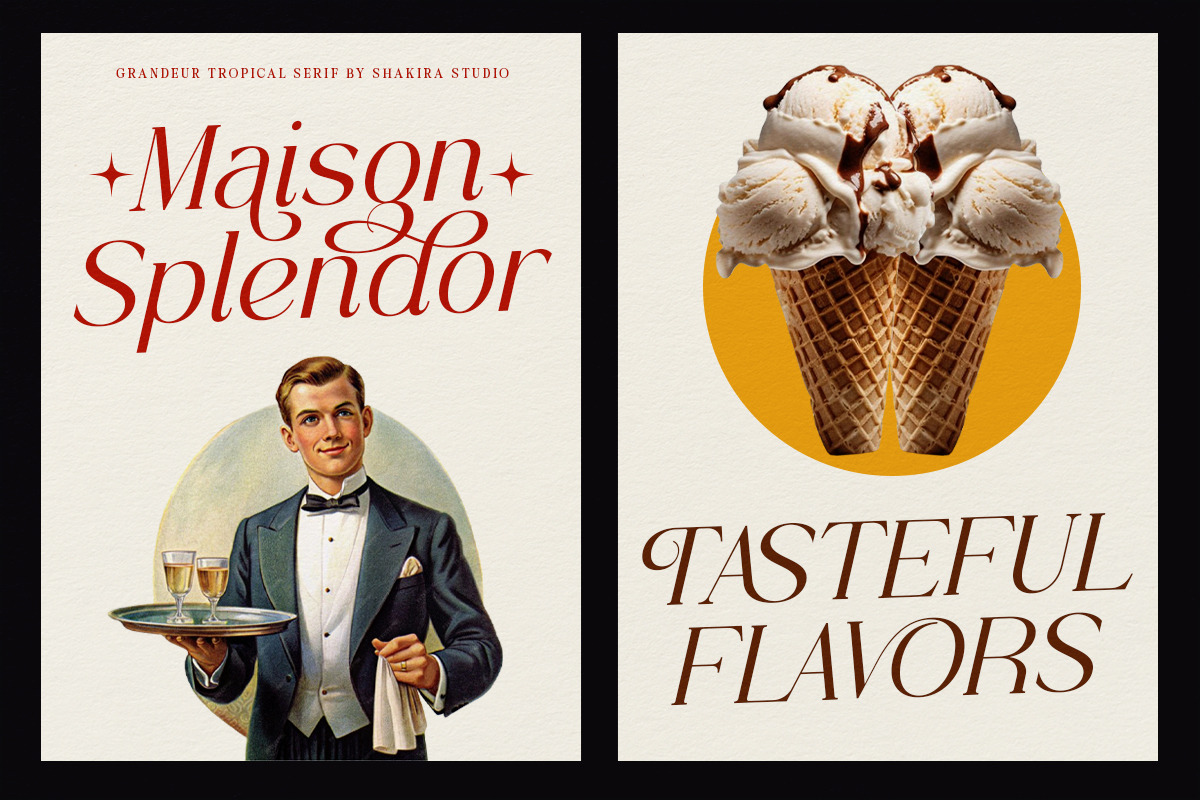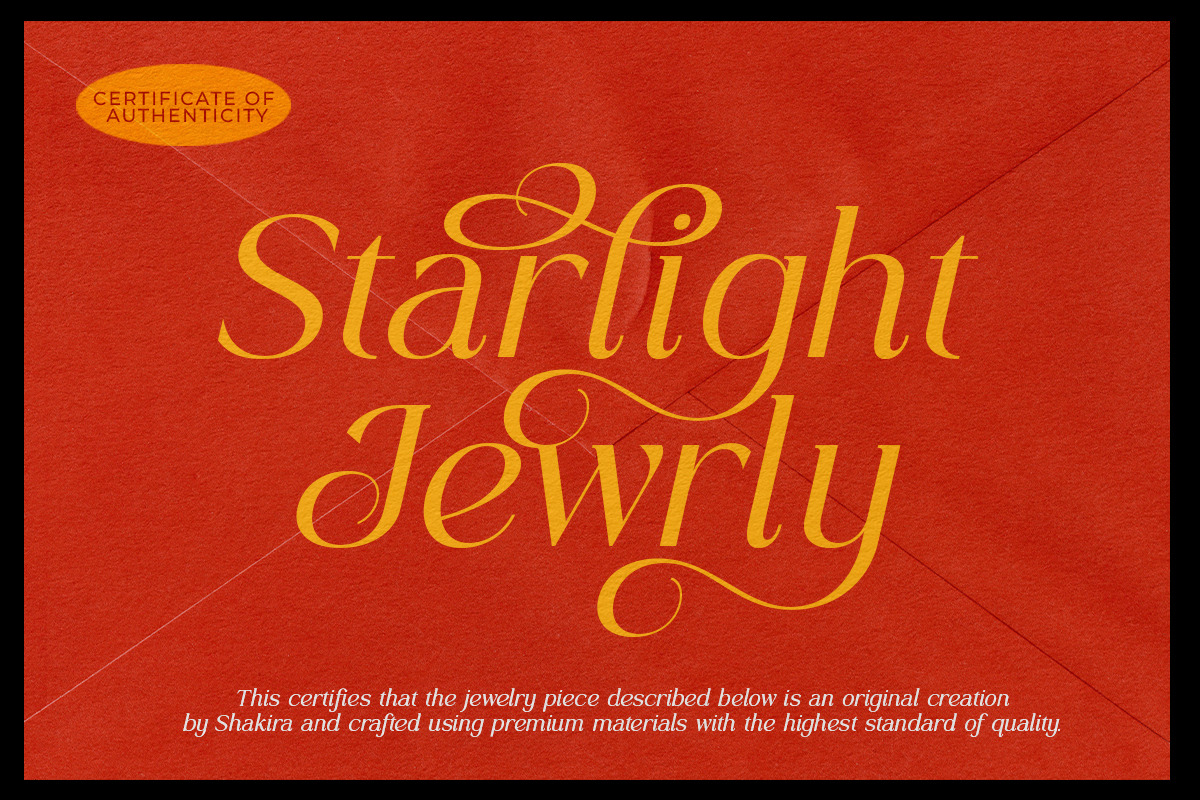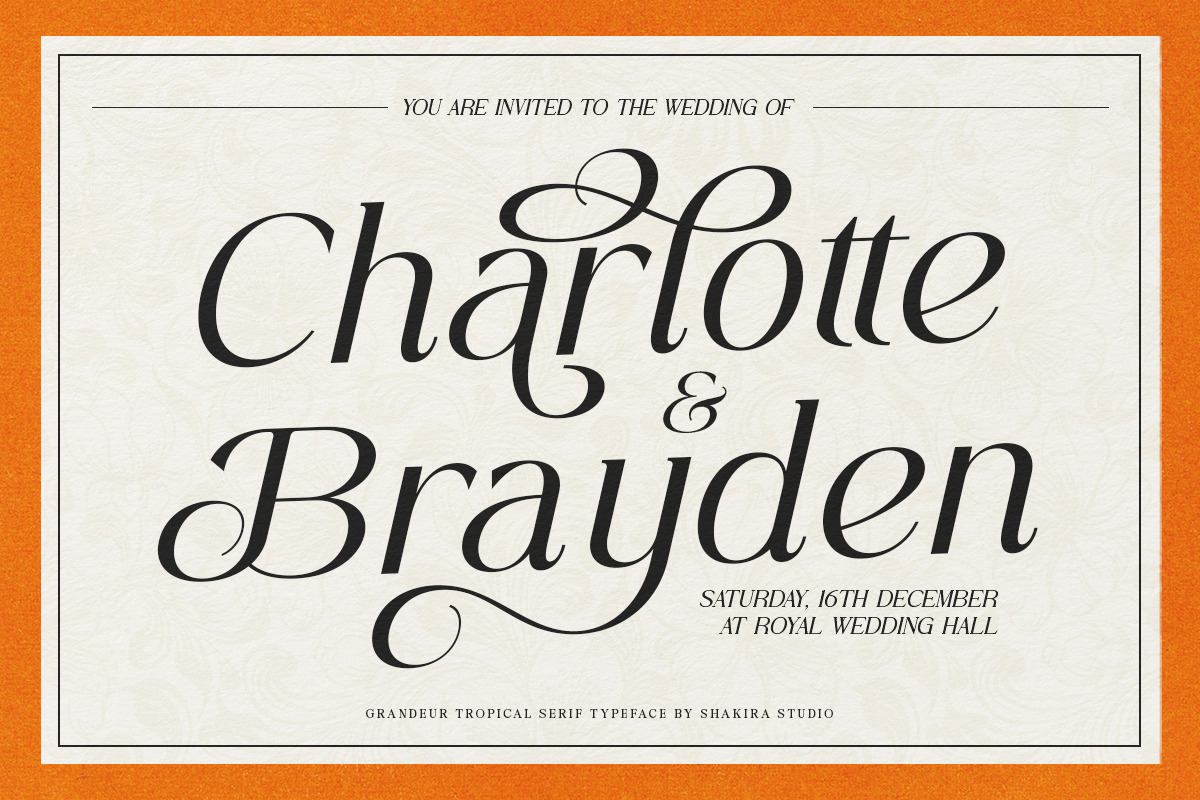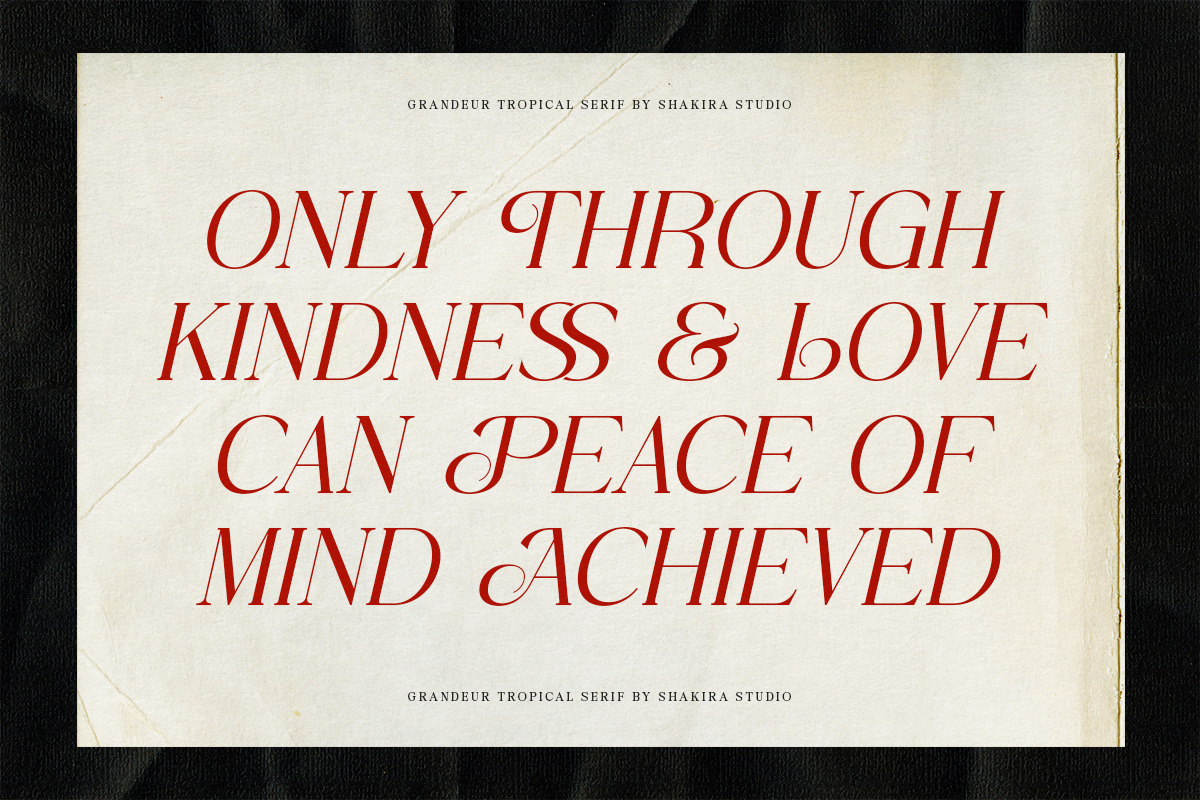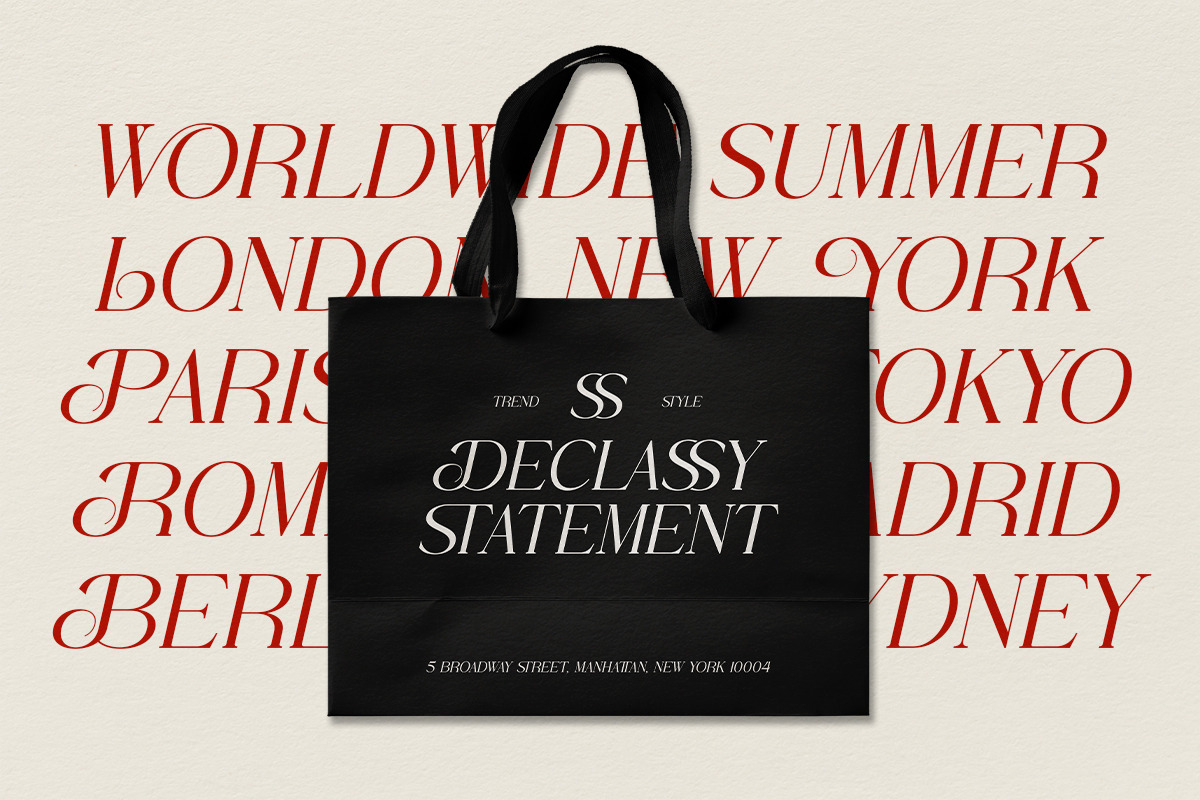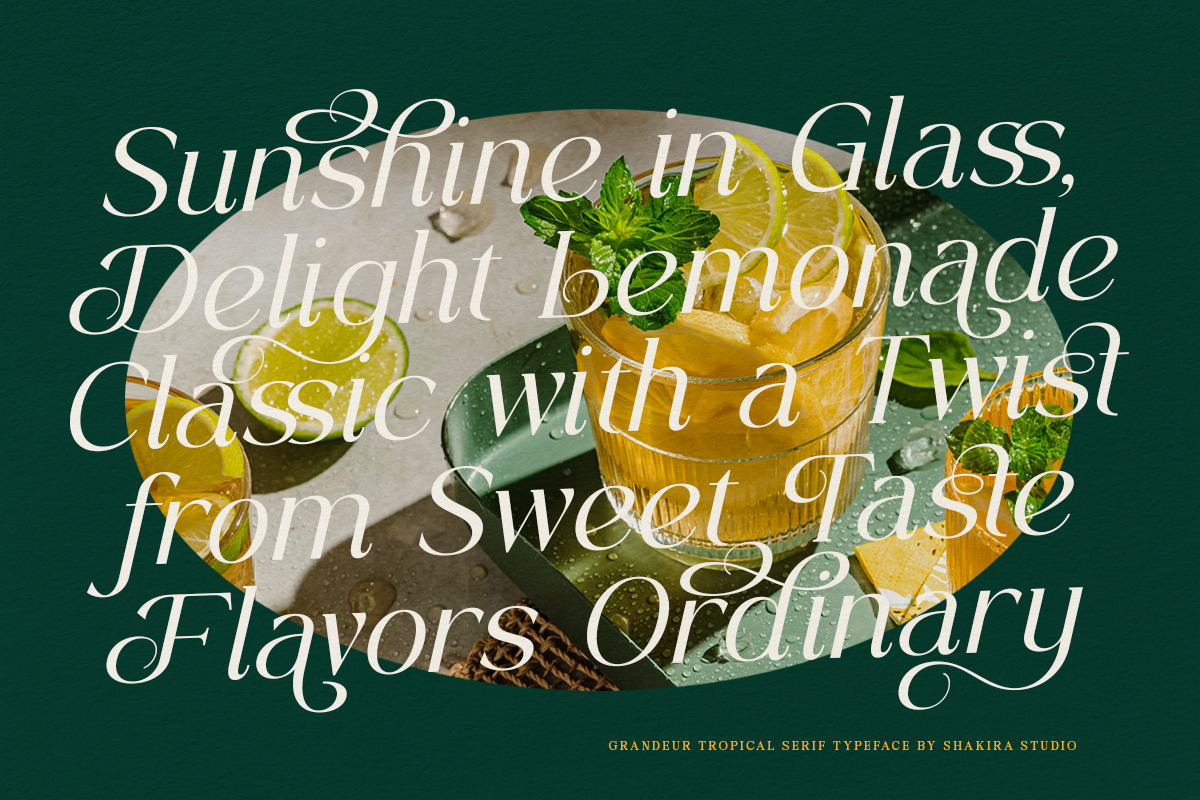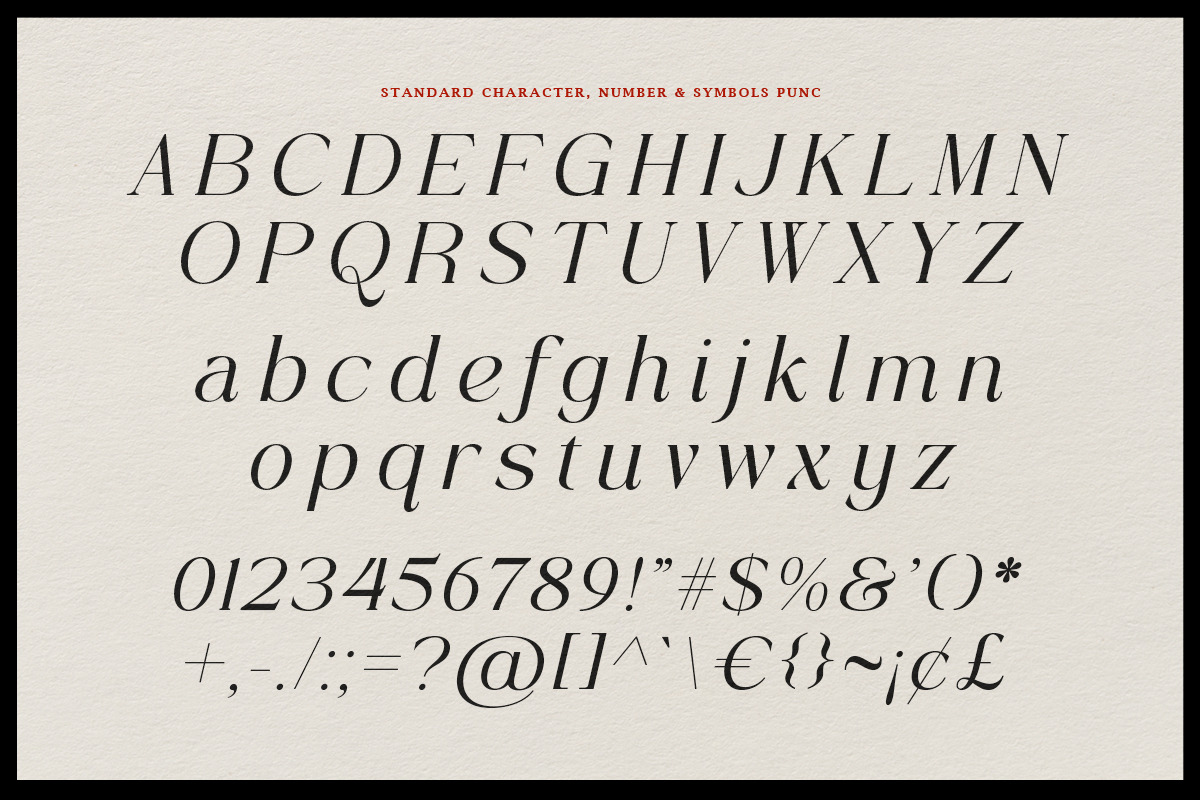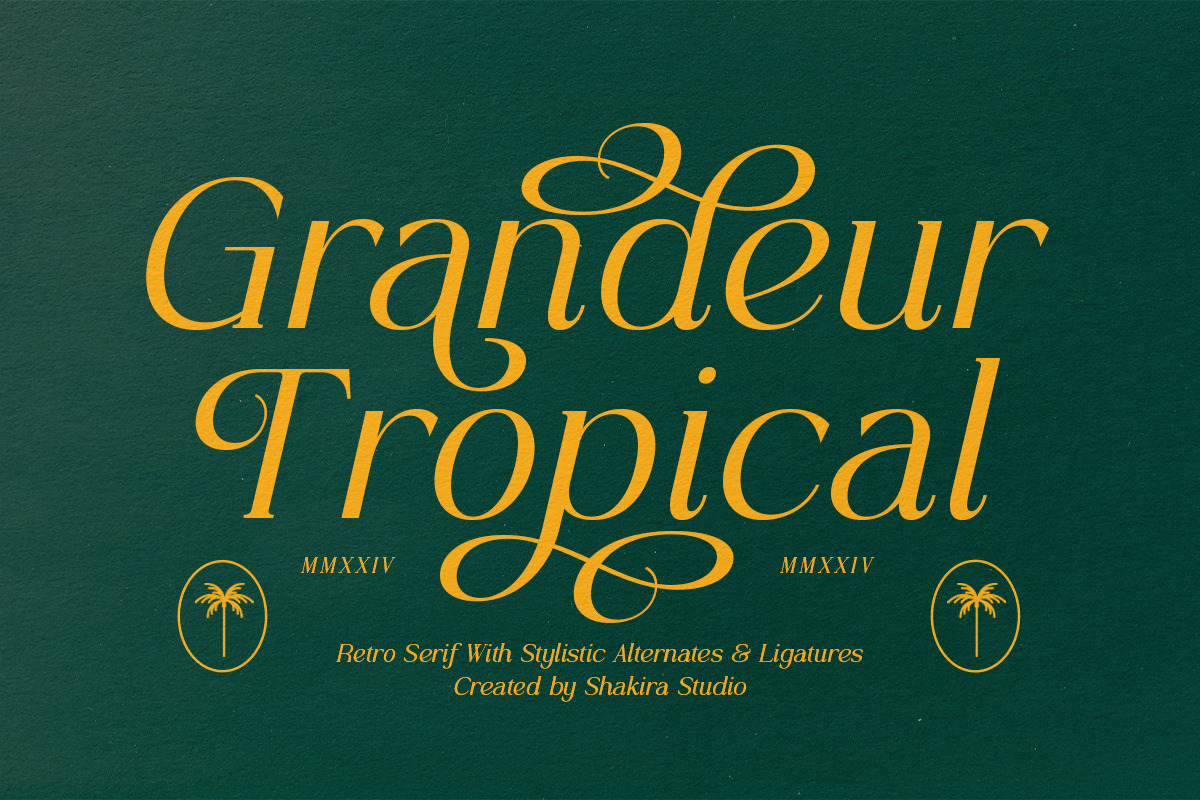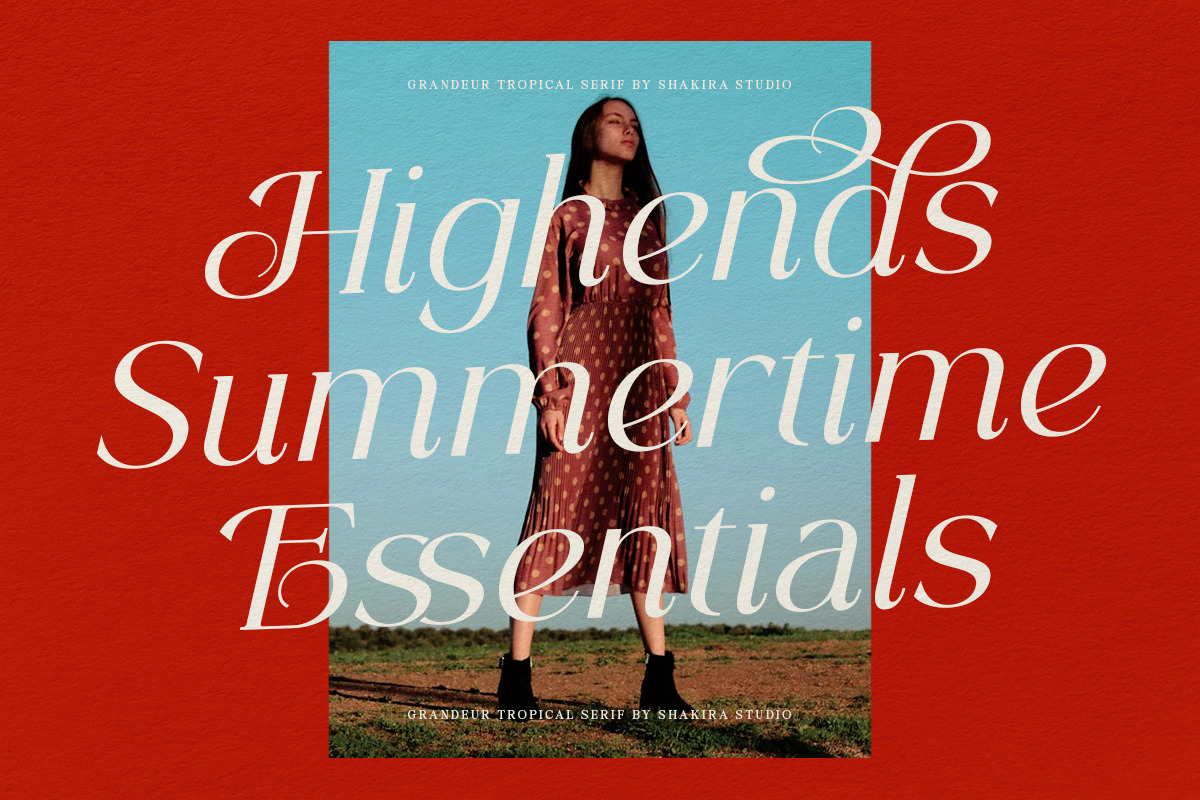
Grandeur Tropical – Retro Serif Font
Grandeur Tropical is a luxurious retro serif font with a bold and stylish character, perfect for creating stunning and memorable designs. Featuring elegant alternates and ligatures, this font offers flexibility and ease of use, allowing designers to customize layouts effortlessly.
Ideal for posters, magazines, and print designs, Grandeur Tropical brings a touch of sophistication and cool retro vibes to every project. Whether you’re crafting editorial layouts or standout branding, this typeface ensures an elevated and polished result.
Transform your designs with the timeless charm of Grandeur Tropical!
- Opentype features ( ligature, alternate )